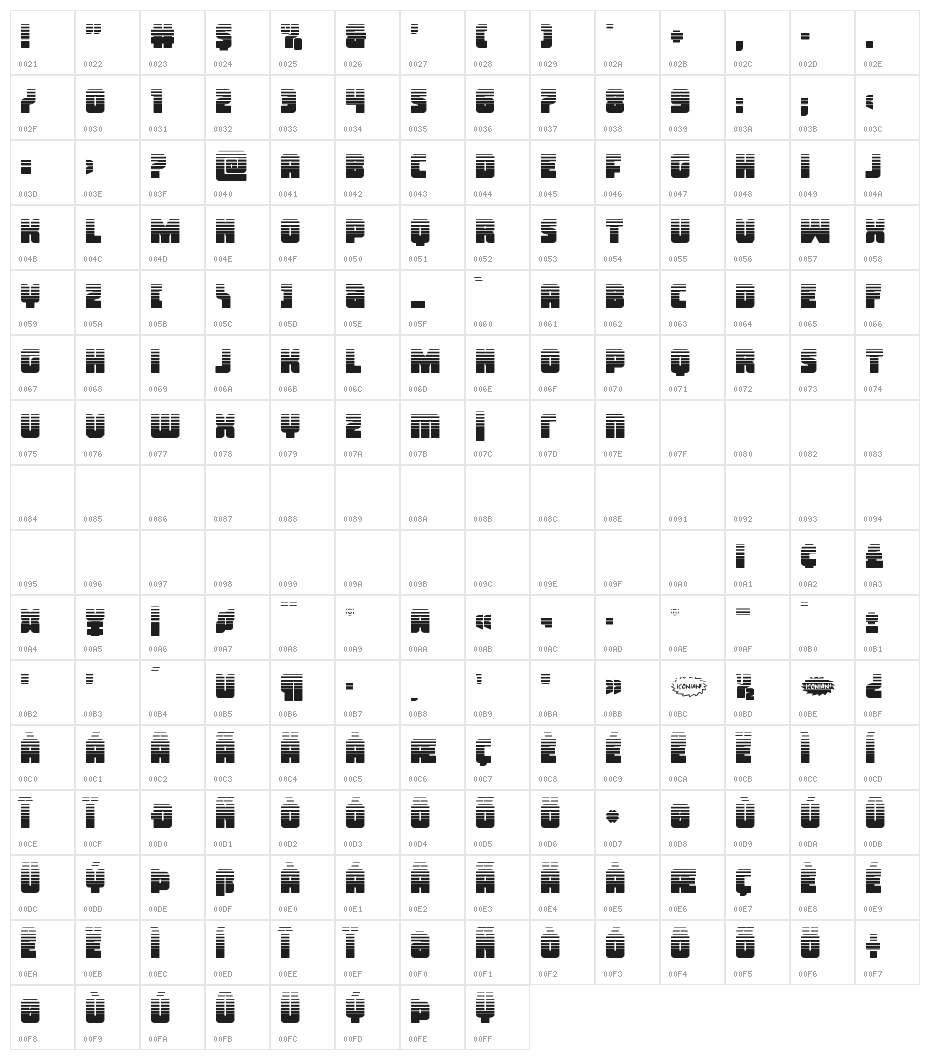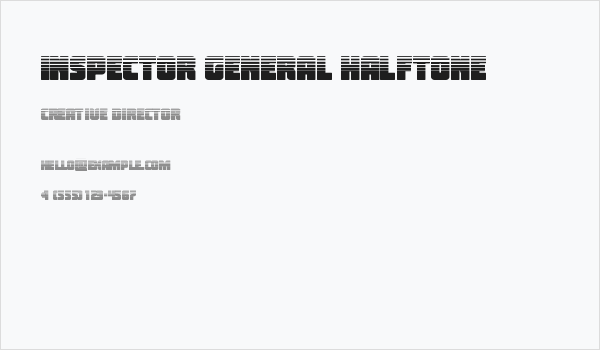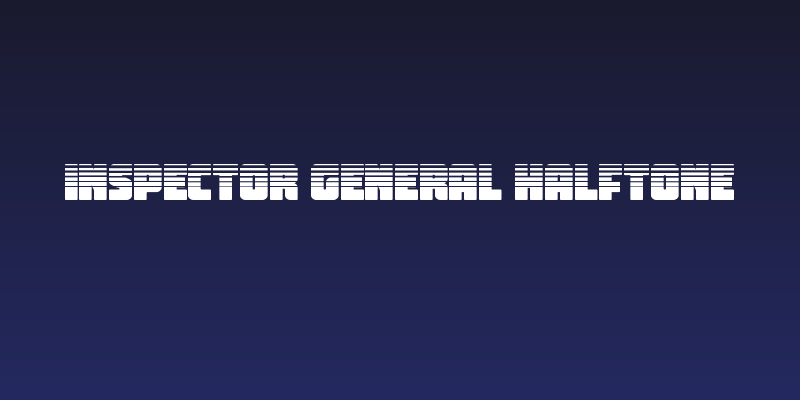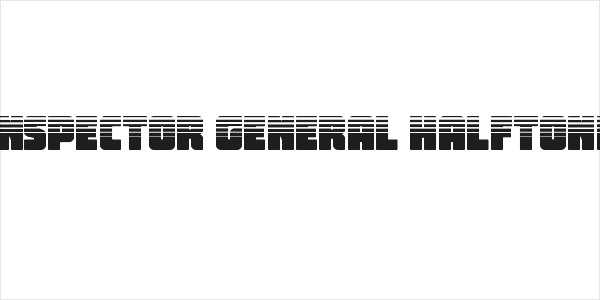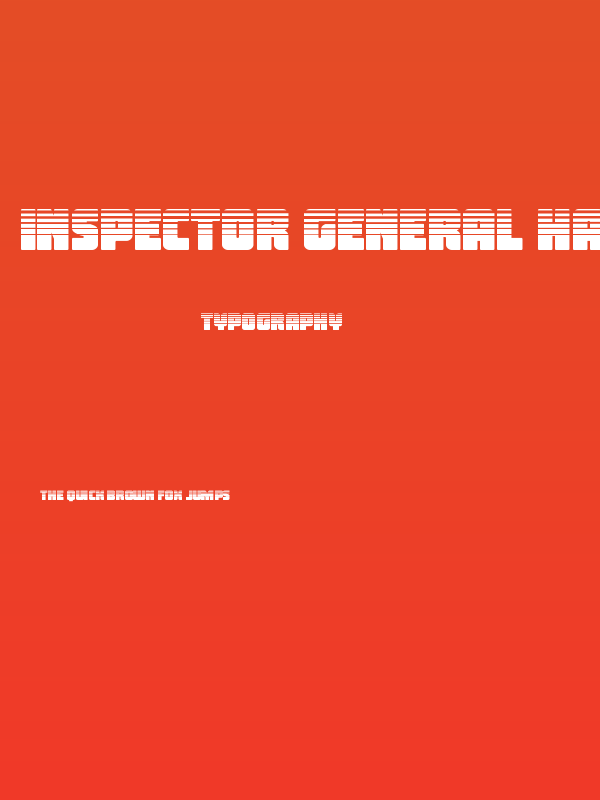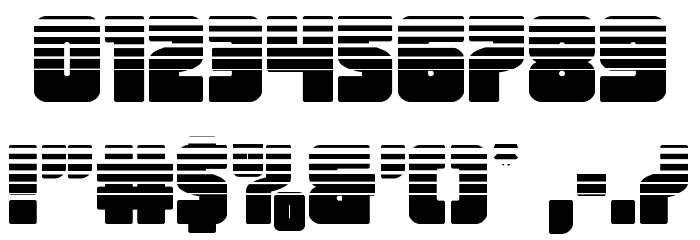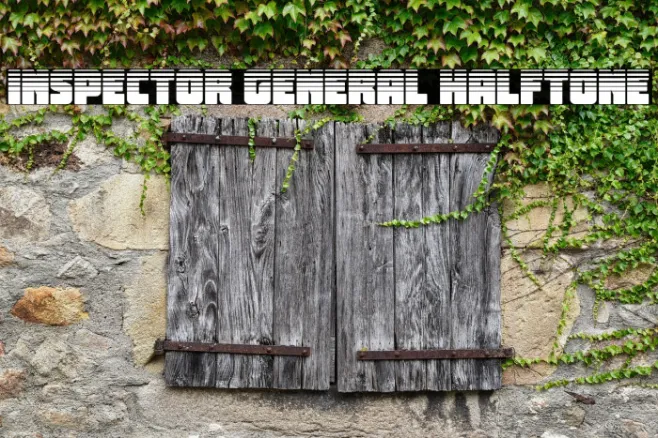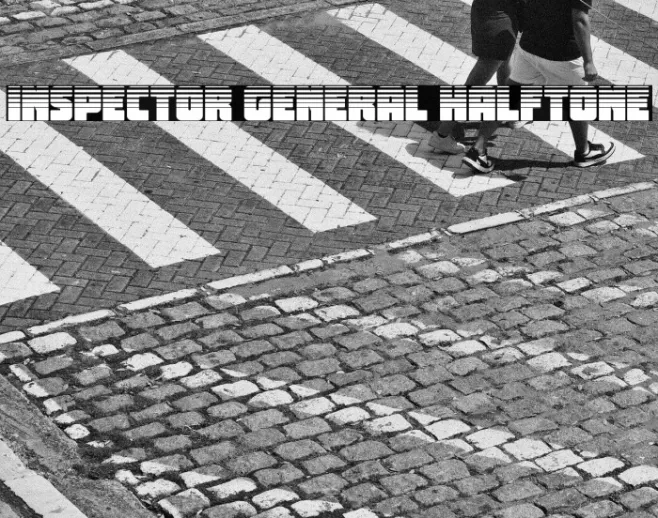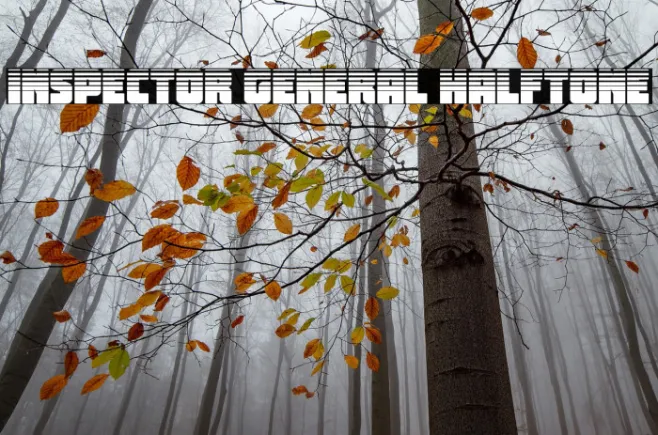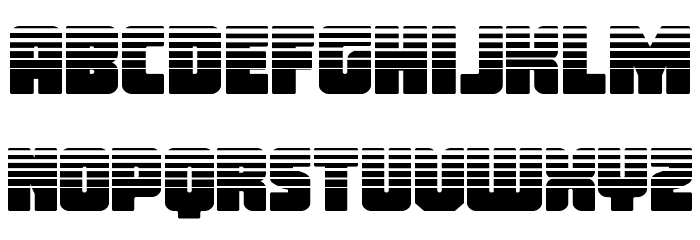
Inspector General Halftone Font
Inspector General Halftone Description
This font features a bold, geometric design with a halftone effect that creates a sense of depth and texture. The characters are constructed with horizontal lines that vary in thickness, giving them a unique, layered appearance. The uppercase and lowercase letters maintain a consistent style, with a strong emphasis on horizontal symmetry. Numbers and special characters are designed to match the bold and structured aesthetic of the alphabet. This font is visually striking and ideal for projects that require a modern and edgy look.
| Proposed Projects | Ideal for posters, album covers, branding, and any project needing a modern, edgy aesthetic. |